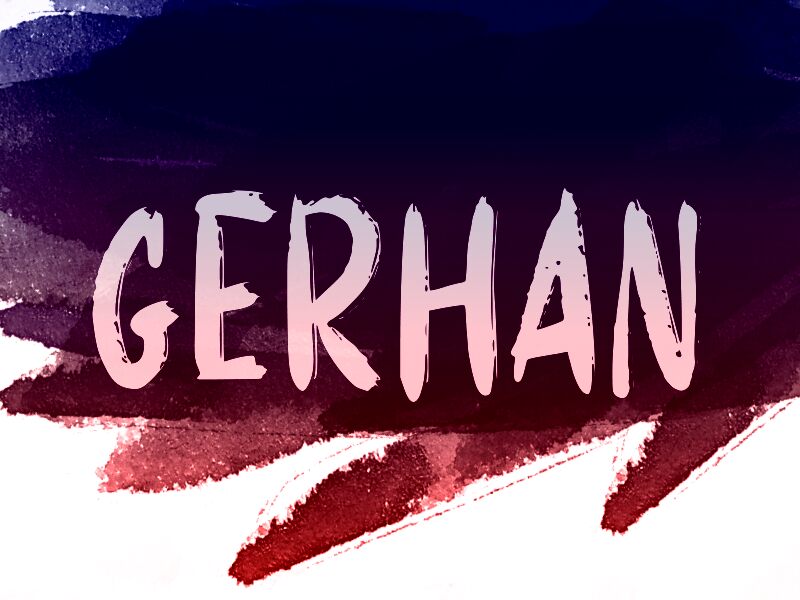
GERHAN
Gerhan, a captivating brush-style font crafted by designer wep, exudes a striking, dynamic presence. The condensed width lends an impactful, attention-grabbing quality, while the bold, expressive strokes convey a sense of raw energy and movement. This font's unique character effortlessly blends the rugged charm of handwritten scripts with the polish of a refined, contemporary aesthetic.
Gerhan's versatile nature allows it to seamlessly transition across a wide range of design applications. From bold headings and captivating logos to eye-catching editorial layouts, this font's powerful presence commands attention and leaves a lasting impression. Its bold, confident aesthetic makes it a compelling choice for projects seeking to evoke a sense of passion, authenticity, and creative flair.